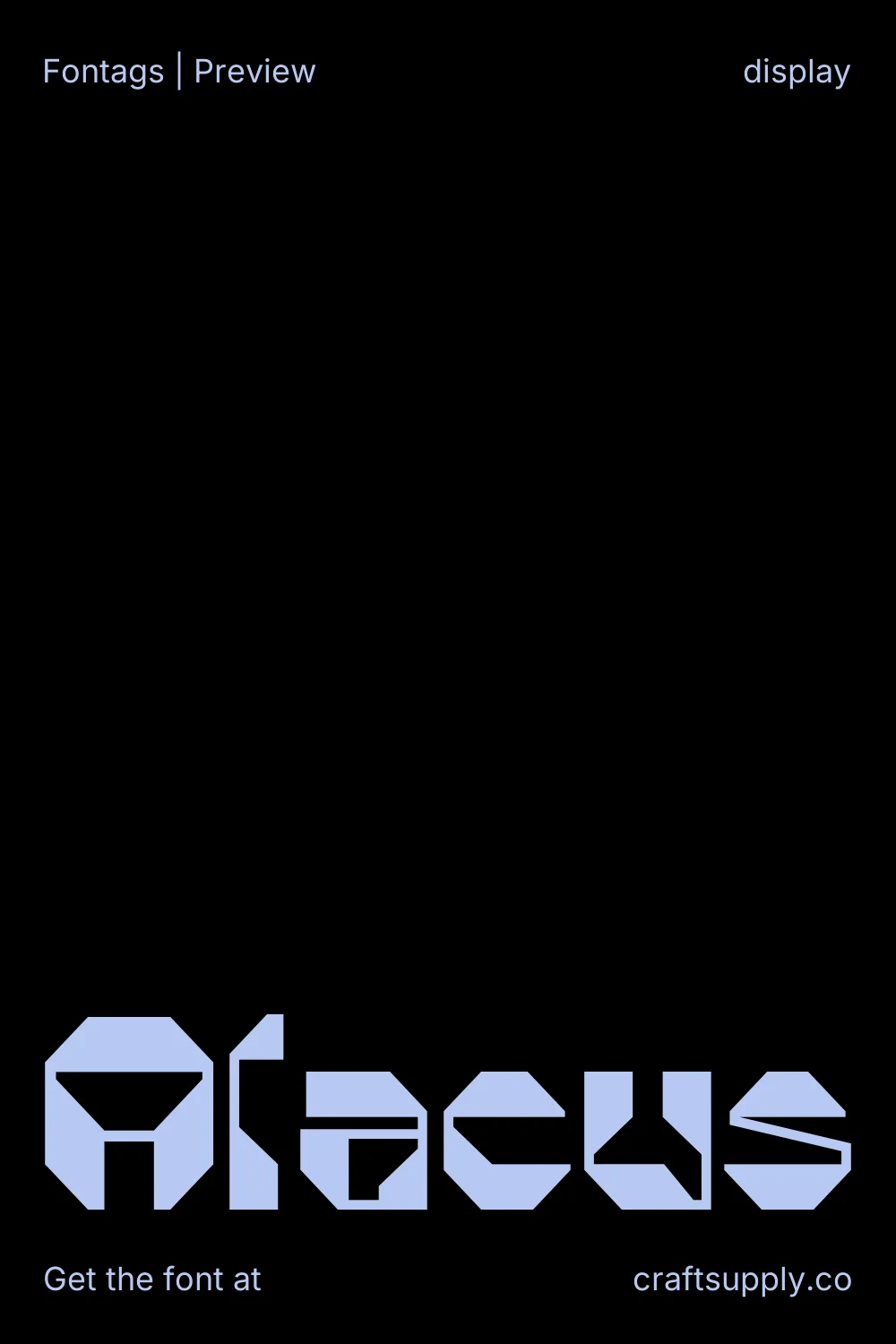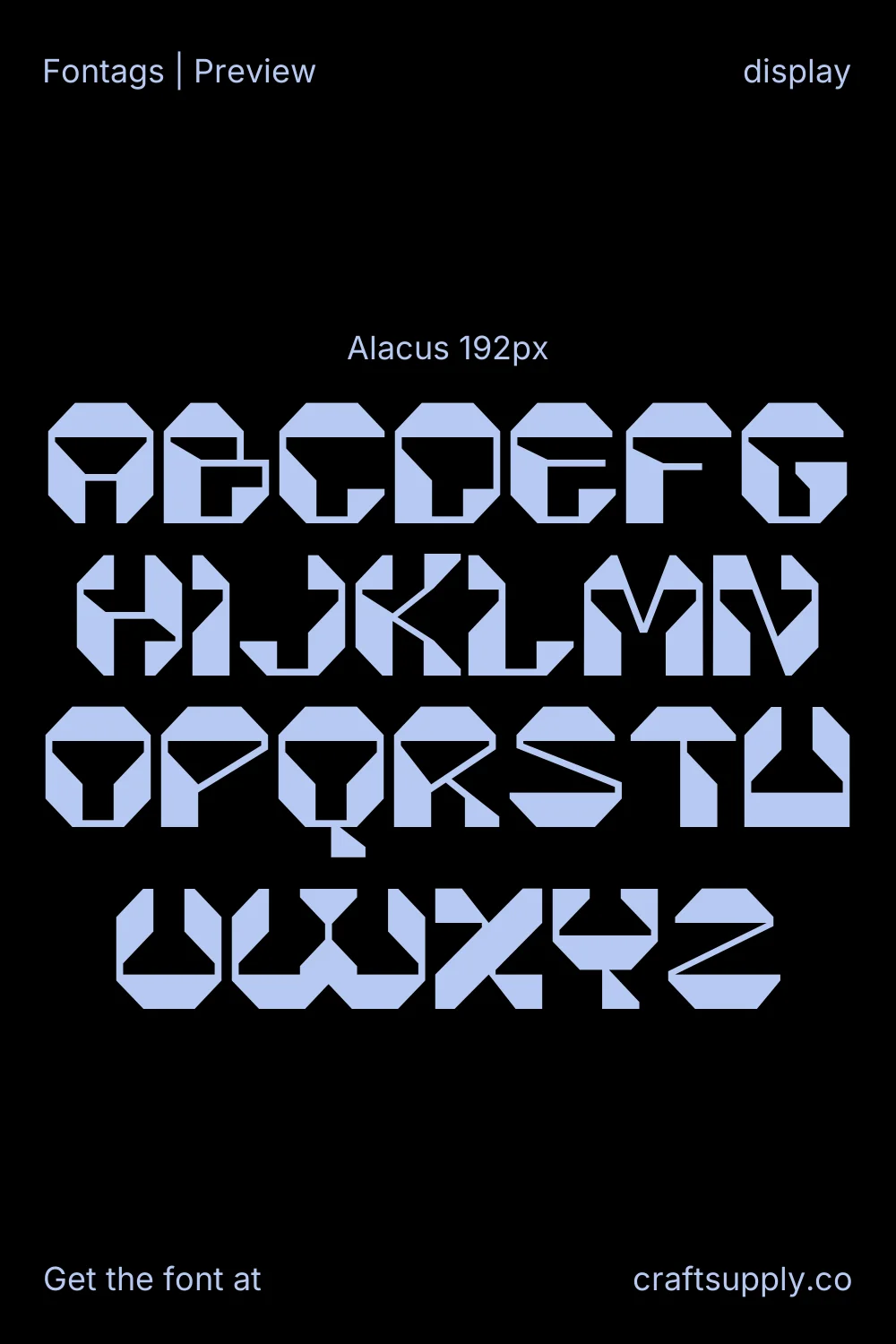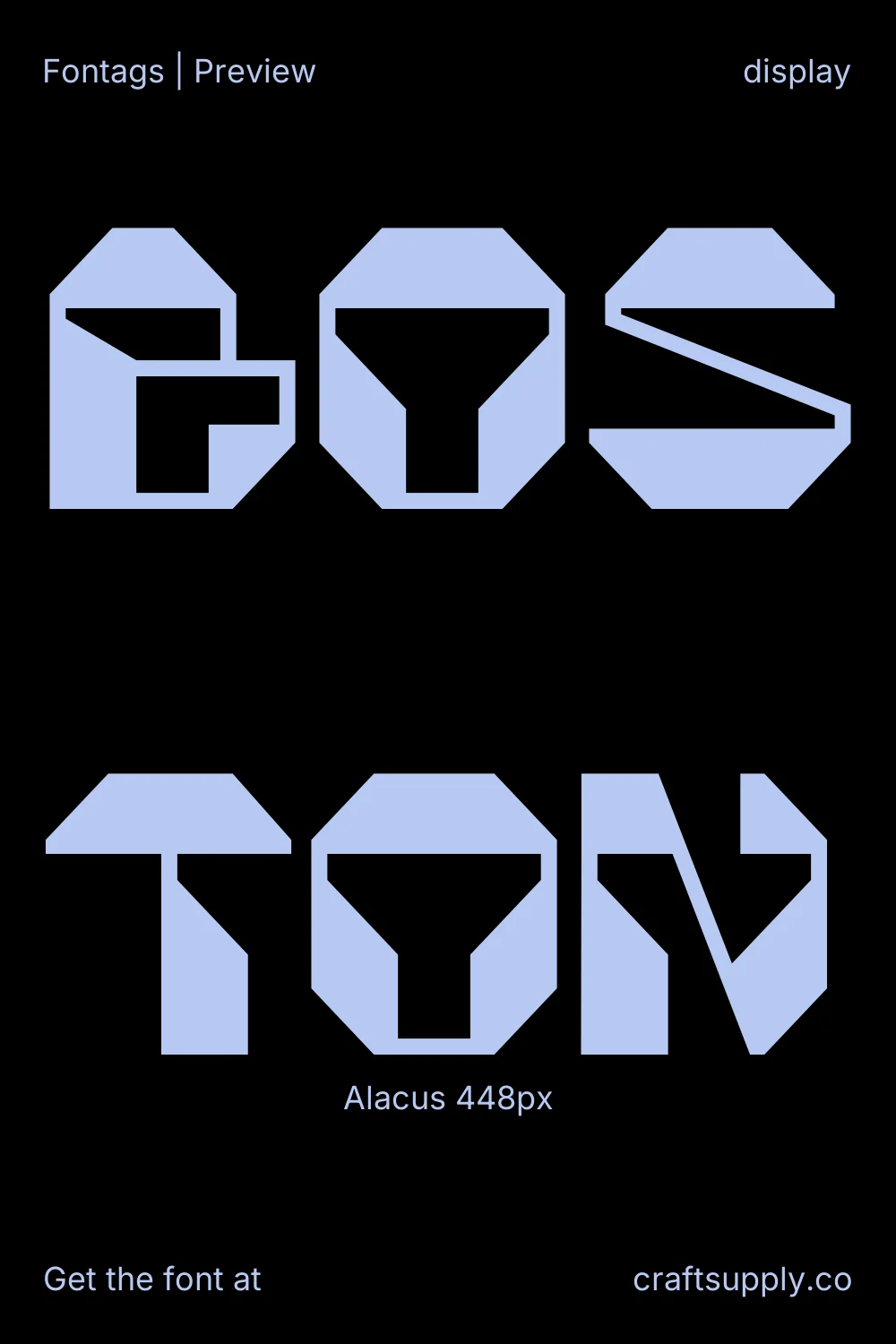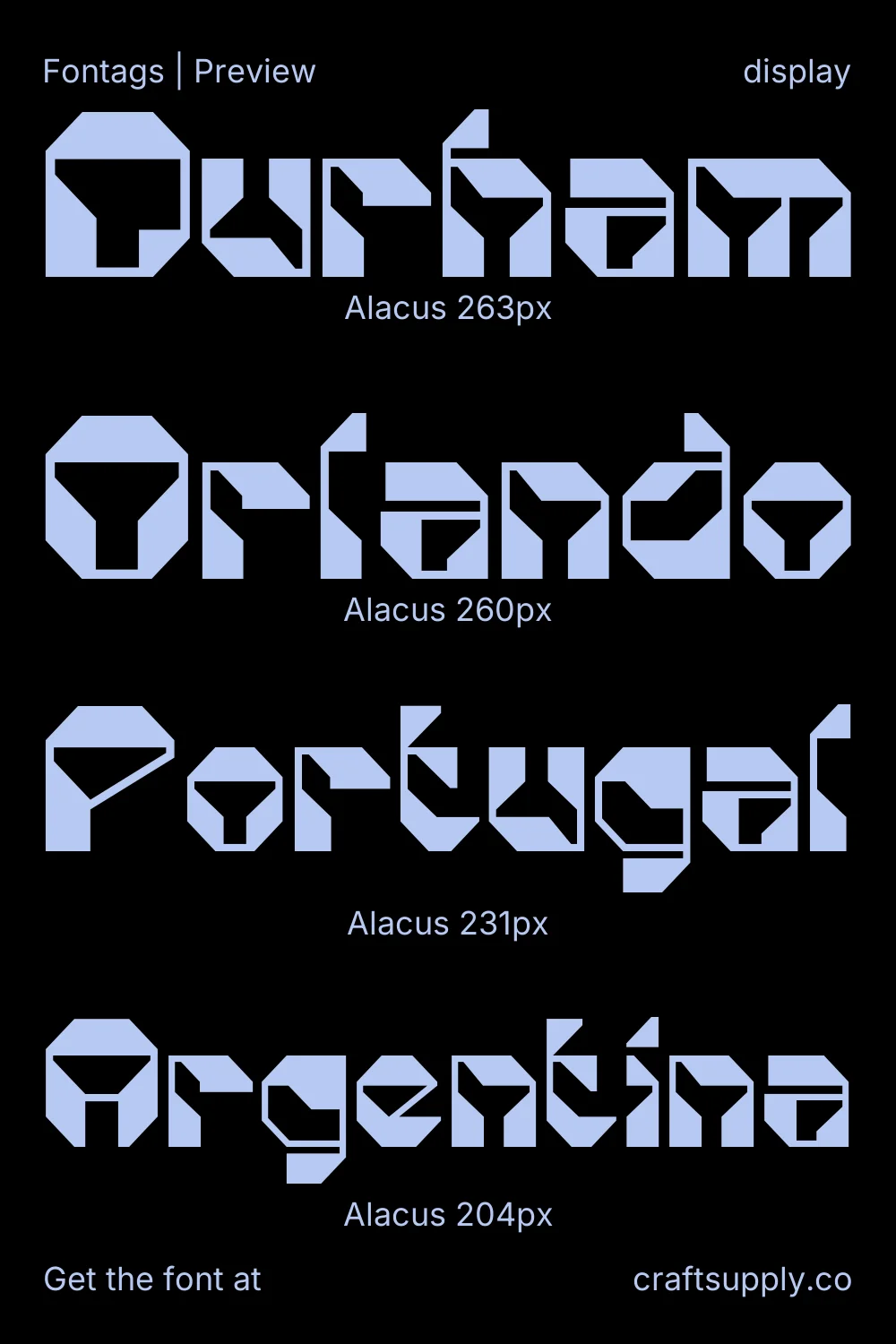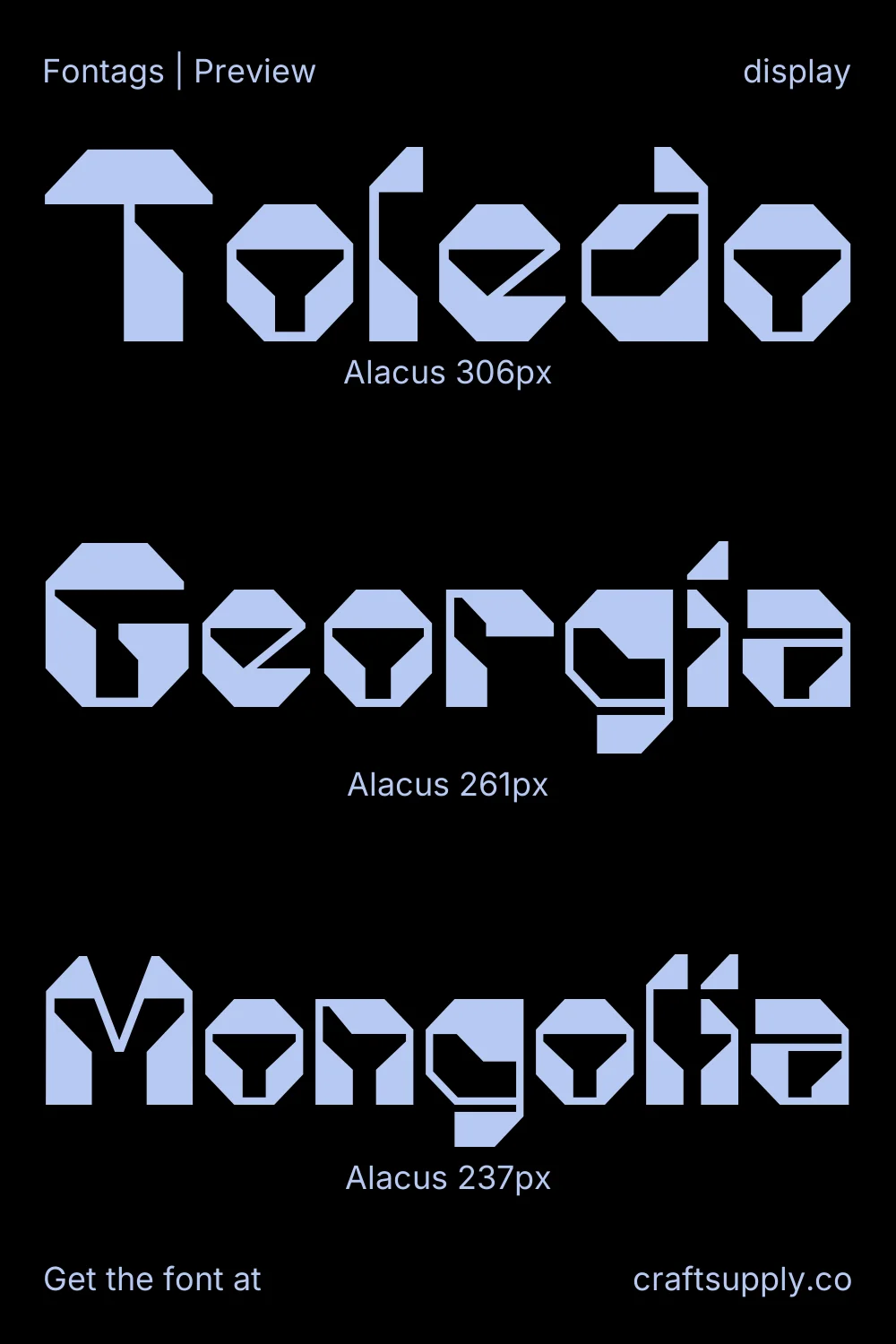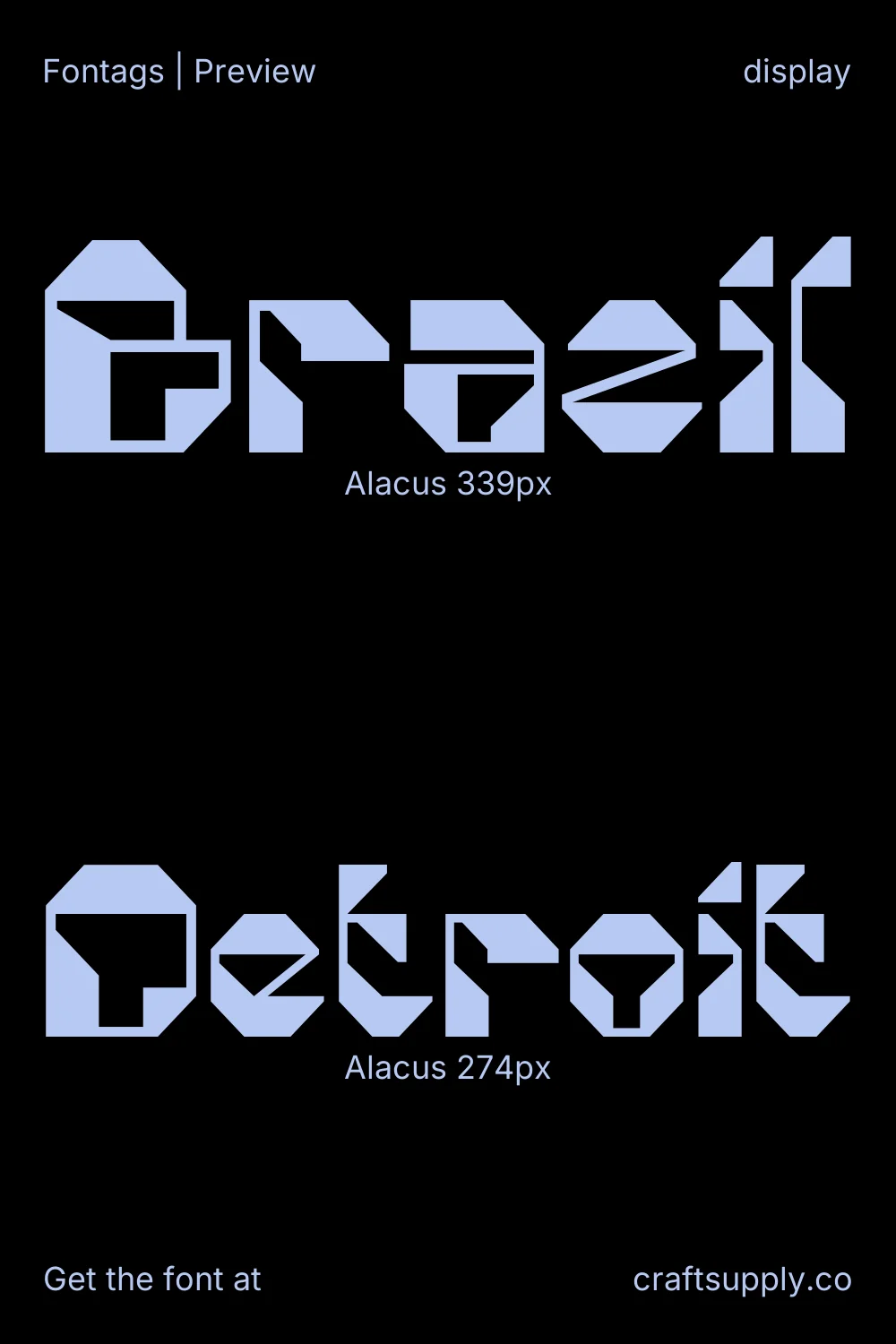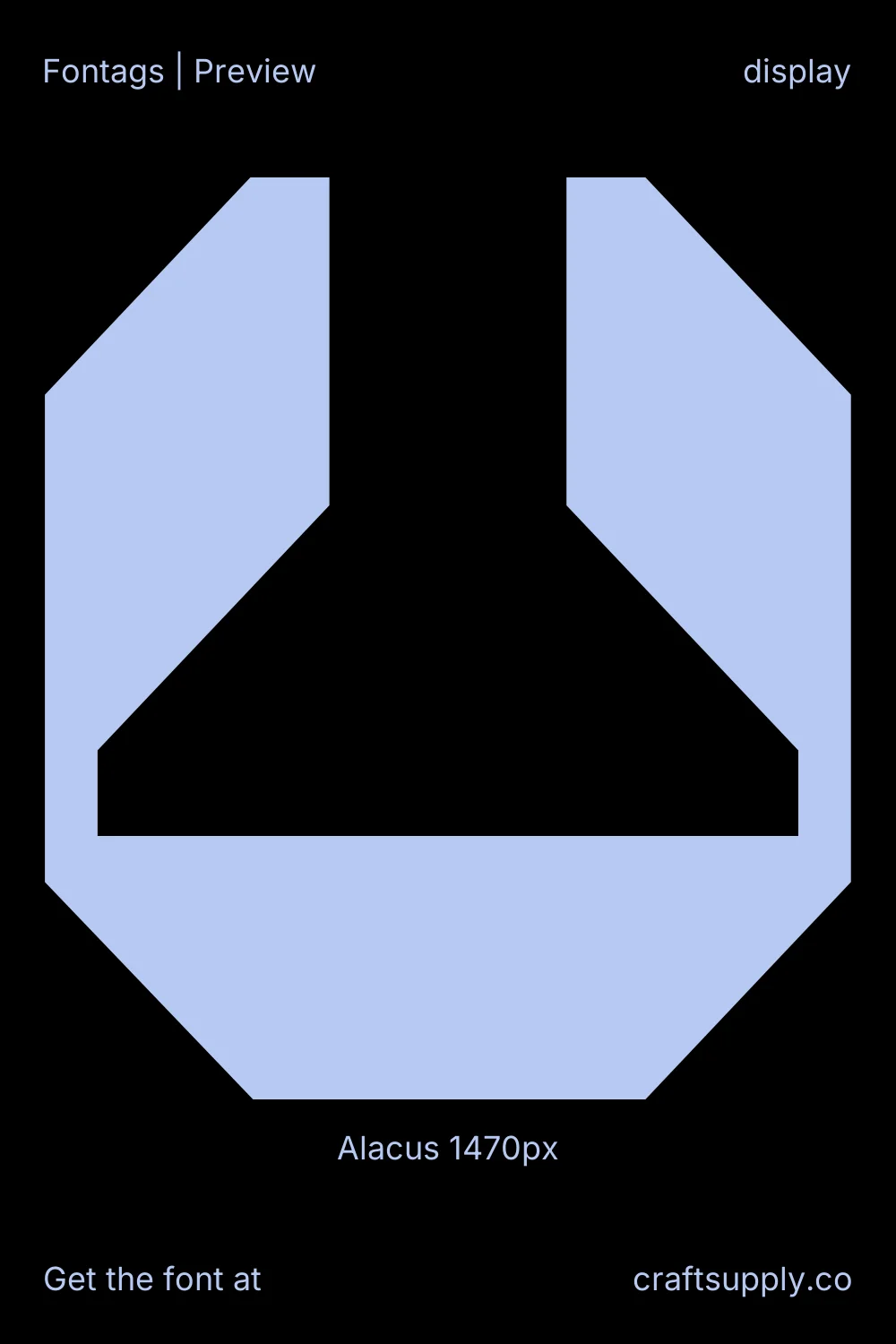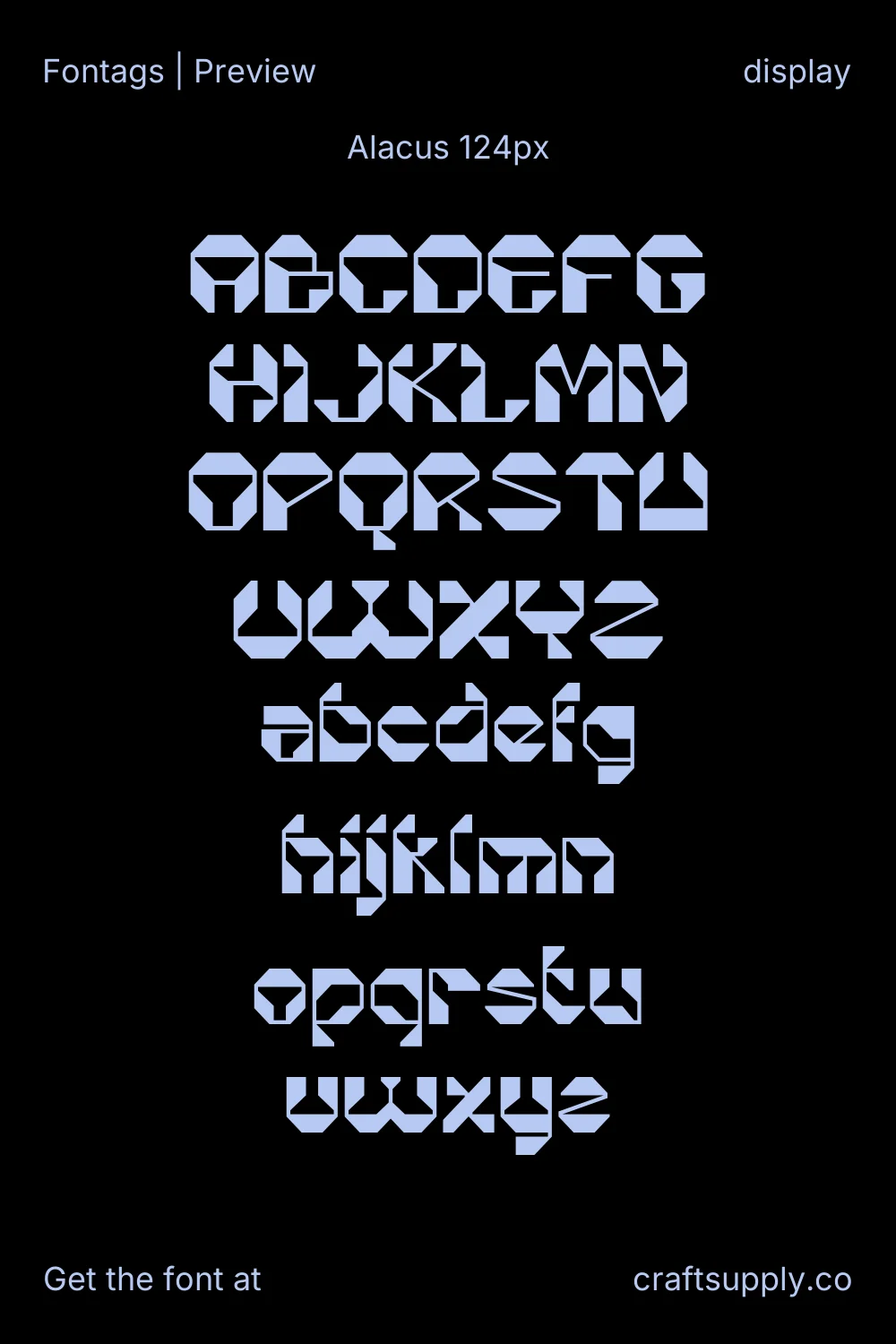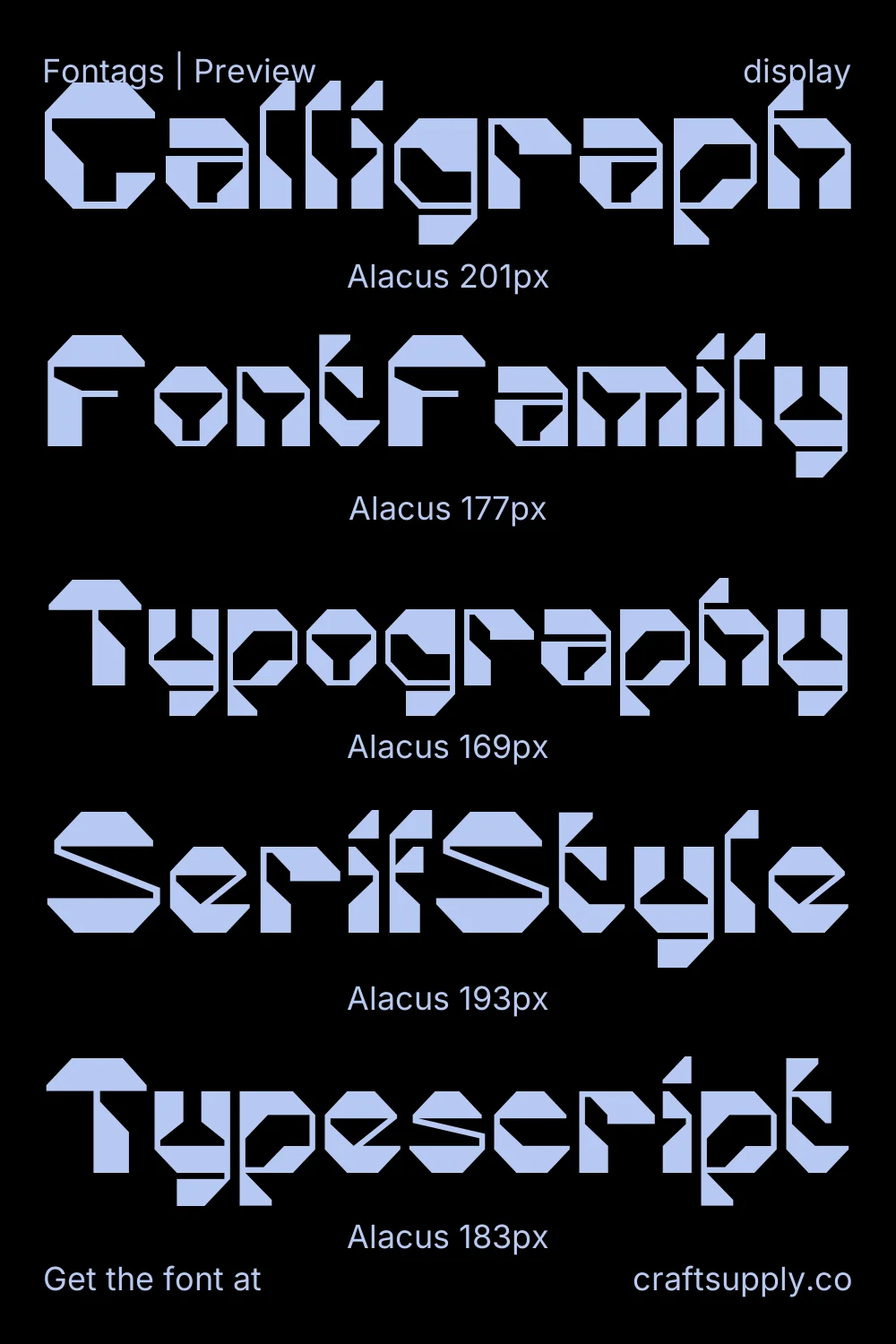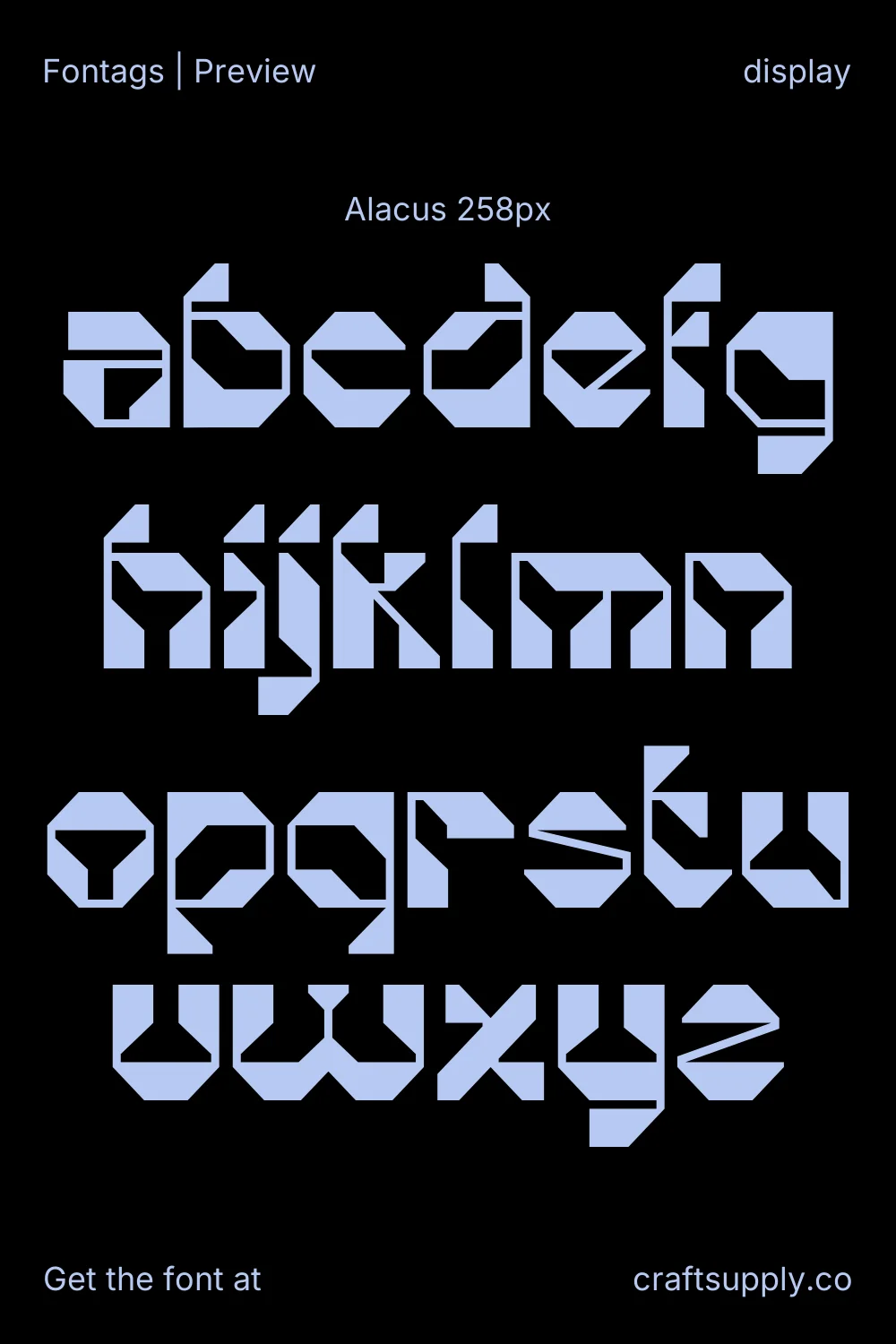
Alacus
Alacus is a futuristic display font that draws inspiration from mecha aesthetics, offering geometric precision and bold lines. Its sleek yet robust design seamlessly combines modern technology with striking visuals, making it ideal for digital interfaces, sci-fi themed print projects, and impactful headings. This versatile typeface ensures a memorable, futuristic typographic experience.